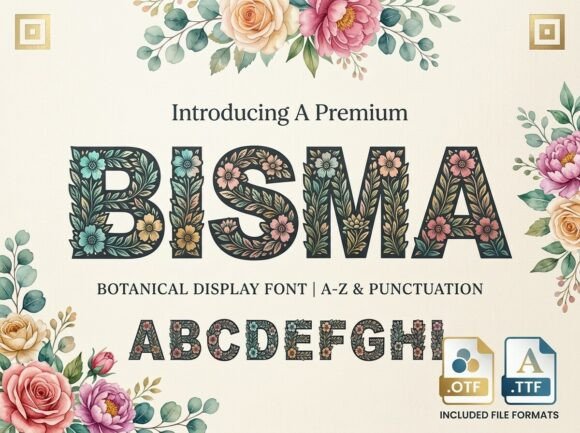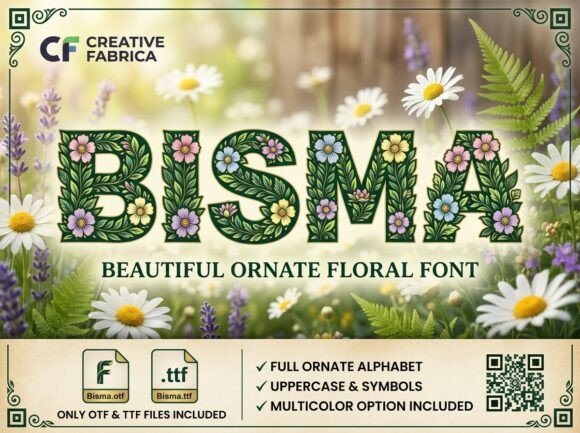
Bisma Font: Elevate Your Designs with Elegant Floral Typography
Are you looking for a typeface that can add a touch of elegance and romance to your designs? Look no further than Bisma, a beautifully crafted floral font that is sure to impress. In this article, we’ll take a closer look at Bisma and explore its features, uses, and benefits for designers and crafters.
Introducing Bisma: A Hand-Crafted Floral Masterpiece
Bisma is a stunning floral typeface that is meticulously designed to resemble a hand-crafted garden. Every character in Bisma is carefully woven with vibrant flowers, lush green leaves, and delicate golden vine work, creating a truly unique and breathtaking aesthetic. This professional-grade botanical font is perfect for designers and crafters who want to add a touch of elegance and sophistication to their work.
Perfect for Romantic Wedding Invitations and Floral Logos
Bisma is an ideal choice for romantic wedding invitations, boutique floral logos, and ethereal craft projects. Its delicate and intricate design makes it perfect for creating beautiful and memorable stationery, signage, and branding materials. Whether you’re a designer looking for a unique font to offer your clients or a crafter seeking to add a personal touch to your projects, Bisma is sure to impress.
Key Features of Bisma Font
- Hand-crafted design: Every character in Bisma is carefully designed to resemble a hand-crafted garden, making it truly unique and one-of-a-kind.
- Vibrant flowers and lush green leaves: Bisma features vibrant flowers and lush green leaves that add a touch of elegance and sophistication to your designs.
- Delicate golden vine work: The delicate golden vine work in Bisma adds a touch of luxury and refinement to your designs.
- Professional-grade botanical aesthetic: Bisma offers a professional-grade botanical aesthetic that ensures your message is as beautiful as it is memorable.
Uses for Bisma Font
Bisma is a versatile font that can be used for a wide range of design projects, including:
- Wedding invitations and stationery: Bisma is perfect for creating beautiful and romantic wedding invitations, stationery, and other paper goods.
- Floral logos and branding: Bisma’s elegant and sophisticated design makes it ideal for creating stunning floral logos and branding materials.
- Ethereal craft projects: Bisma is perfect for crafters who want to add a touch of elegance and sophistication to their projects, such as scrapbooking, card making, and more.
- Signage and display graphics: Bisma’s beautiful design makes it perfect for creating stunning signage and display graphics for events, weddings, and businesses.
Benefits of Using Bisma Font
There are many benefits to using Bisma font in your designs, including:
- Unique and eye-catching design: Bisma’s hand-crafted design makes it truly unique and eye-catching, ensuring your designs stand out from the crowd.
- Elegant and sophisticated aesthetic: Bisma’s elegant and sophisticated aesthetic makes it perfect for creating high-end designs that exude luxury and refinement.
- Professional-grade quality: Bisma is a professional-grade font that is designed to deliver high-quality results, making it perfect for designers and crafters who demand the best.
In conclusion, Bisma font is a stunning floral typeface that is sure to elevate your designs to the next level. Its hand-crafted design, vibrant flowers, and delicate golden vine work make it perfect for romantic wedding invitations, boutique floral logos, and ethereal craft projects. With its professional-grade botanical aesthetic and versatile uses, Bisma is a must-have font for designers and crafters who want to add a touch of elegance and sophistication to their work.